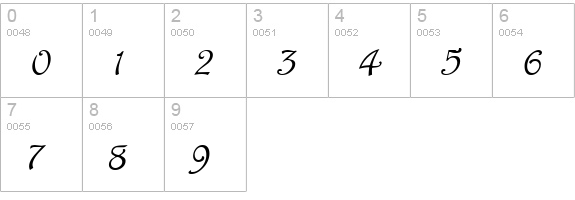
Parisian Italic is a distinctive, italic variant in the Parisian typeface family \xE2\x80\x94 well suited to design and typography projects.
Introducing the exquisite Parisian Italic font, a captivating and timeless typeface that effortlessly captures the essence of Parisian elegance. This font is the epitome of sophistication, with its beautifully flowing curves and delicate strokes that exude a sense of refined grace. Parisian Italic is a versatile and versatile font that can be used for a wide range of design projects. Whether you are creating elegant invitations, luxurious branding materials, or creating a stylish editorial layout, this font will add a touch of class and sophistication to any design. What sets Parisian Italic apart is its unique blend of classic and contemporary elements. It seamlessly combines the romanticism of traditional Parisian scripts with a modern twist, creating a truly distinctive and eye-catching font. The subtle slant and stylish italicized nature of this font add a touch of dynamism and playfulness to your designs, making it perfect for adding a touch of flair and personality. One of the best things about Parisian Italic is that it is free. Yes, you read that right! This stunning font is freely available to download at FontsMarket.com, allowing designers and creatives alike to access its beauty without any cost. With just a few clicks, you can enhance your designs with this elegant and expressive font, without breaking the bank. So, whether you are a seasoned designer looking to elevate your projects or a creative enthusiast exploring new possibilities, Parisian Italic font is a must-have addition to your font library. Download it for free at FontsMarket.com and let its Parisian charm bring your designs to life.